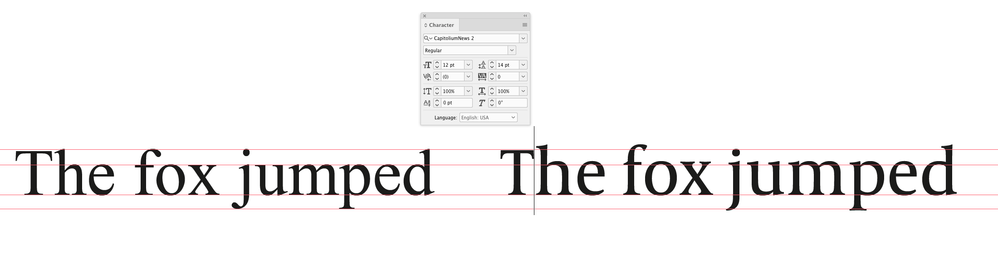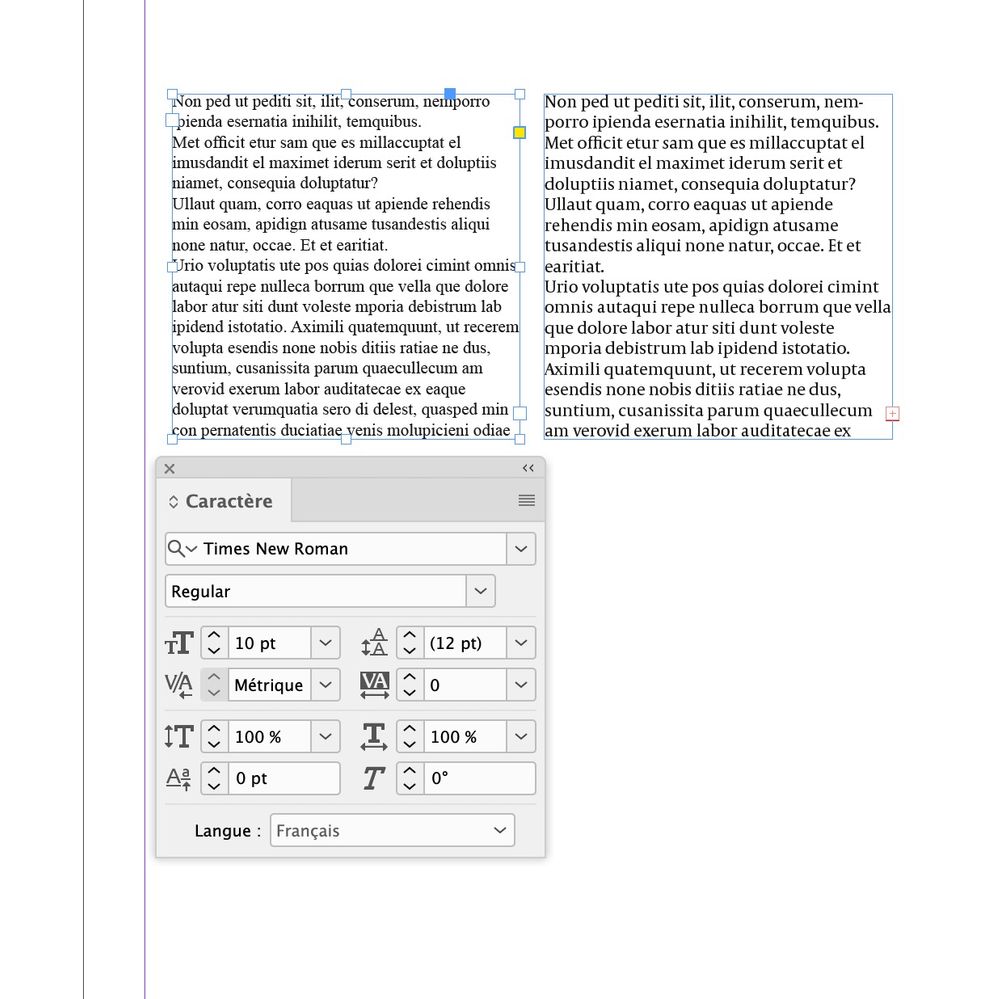
Font Size Comparison
My book designer used Capitolium News 2, 10pt. for the main text in my coffee-table book that will be 9 x 12". The text seems huge! (I have the PDFs) The font size she used looks like the large print books on the market. I am accustomed to Times New Roman, 12 pt. which I understand is the industry standard. How on earth did an experienced book designer make such a bad decision?
What Capitolium News 2 font size is equivalent to Times New Roman, pt.12?
The difference is mostly in the x-height. If I set all caps the cap heights are the same. News has less contrast so it will hold up better under variable printing conditions.
The font’s x-height affects how it sets. This text is all 12pt:
Just realized in my earlier comparison post I was showing Capitolium 2. The Capitoleum 2 News version has a larger x-height, so upper & lower case settings might appear visually larger when compared to a font with a smaller x-height. Gerard Unger is a highly regarded type designer, so I assume the News version has a larger x-height for legibility at smaller point sizes and the poor printing conditions.
Point size is measured from just above the ascenders to just below the descenders, so fonts with larger x-heights can appear larger at the same point size.
Why don’t you just ask the designer to set the text smaller, or use the Capitolium 2 version?
I also find that CapitoliumNews 2 seems huge compared to Times using the same size.
The difference is mostly in the x-height. If I set all caps the cap heights are the same. News has less contrast so it will hold up better under variable printing conditions.
The font’s x-height affects how it sets. This text is all 12pt:
The x and cap heights are virtually identical.
Thanks, Rob for responding. Would you mind venturing an explanation of why when my book designer emailed me (as an attachment) a sample page of text from my book it looks like a Times New Roman 14 pt. size. I did absolutely nothing to it except print it out.
You need to show us what you are seeing, since it does not seem to reflect what we are seeing.
Also, if you are printing from Adobe Acrobat check all your print settings, since it will scale by default.
The other thing to bear in mind that the font size depends on your zoom. Zoom from 100% to 200% and it's twice as big. Never assume the size it opens is some kind of industry standard.
If you wanted a specific font and size, as already pointed out, it should have been specified. And your remark about TNR 12 point being an industry standard has zero basis in truth. There is no industry standard for a font choice.
Why would Times New Roman be an industry standard? What industry?
What's wrong with Capitolium? Why is it a mistake?
If you wanted to use Times New Roman you should have specified this - Times New Roman is a font that a lot of designers would avoid.
There is a difference - hope this helps - but really should have make specific font requests to the designer. How are they to know what you prefer unless you tell them?
And to be honest, the designer should have gotten this info from you before beginning - it would be part of a discussion at briefing stage.
If no font choices were discussed - then a designer would use something that they felt worked well.
If it's already done and printed - not much you can do. If you want the font changed then it's something you'll have to bring up with your designer.
There is a difference for sure
It would be easier to judge if you could post a screenshot of a typical page.